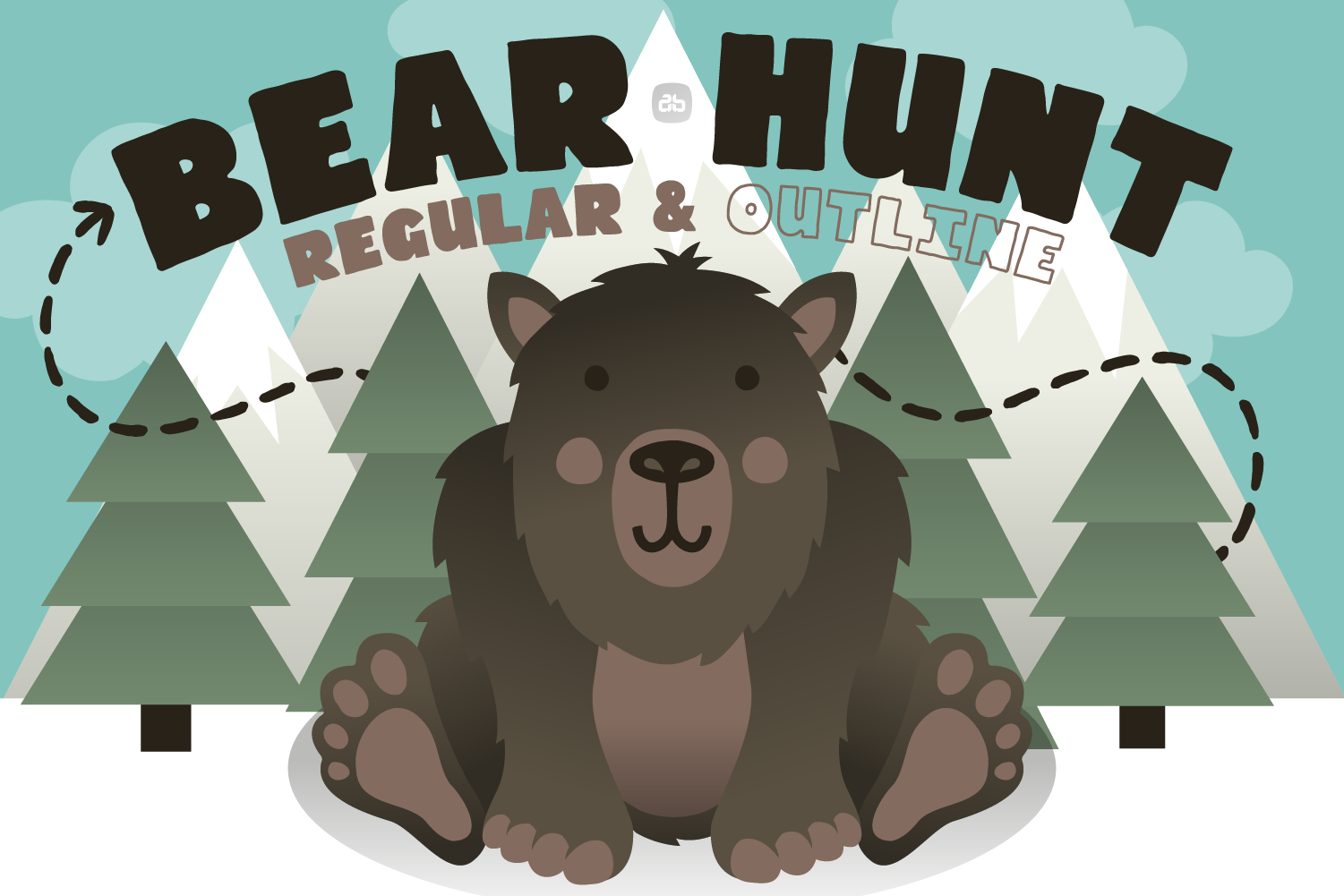
BEAR HUNT Playful Typeface
BEAR HUNT - Playful Typeface - Created Oct 2020
A typeface developed and designed as part of apparel designs I create for my daughter so she can rock her daddy’s designs at nursery. The typeface was named after one of her favorites books "We’re Going On A Bear Hunt" by Author Michael Rosen and the bear character and background illustrated in a simple Scandinavian style.
Sketched out in marker pen, scanned and retouched in illustrator the font has a subtle rough rendered playful feeling to it and works great as display type.
Typeface is primarily setup as uppercase but the lowercase gives you a secondary alternative lettering style and by using the outline variant as an overlay looks awesome!